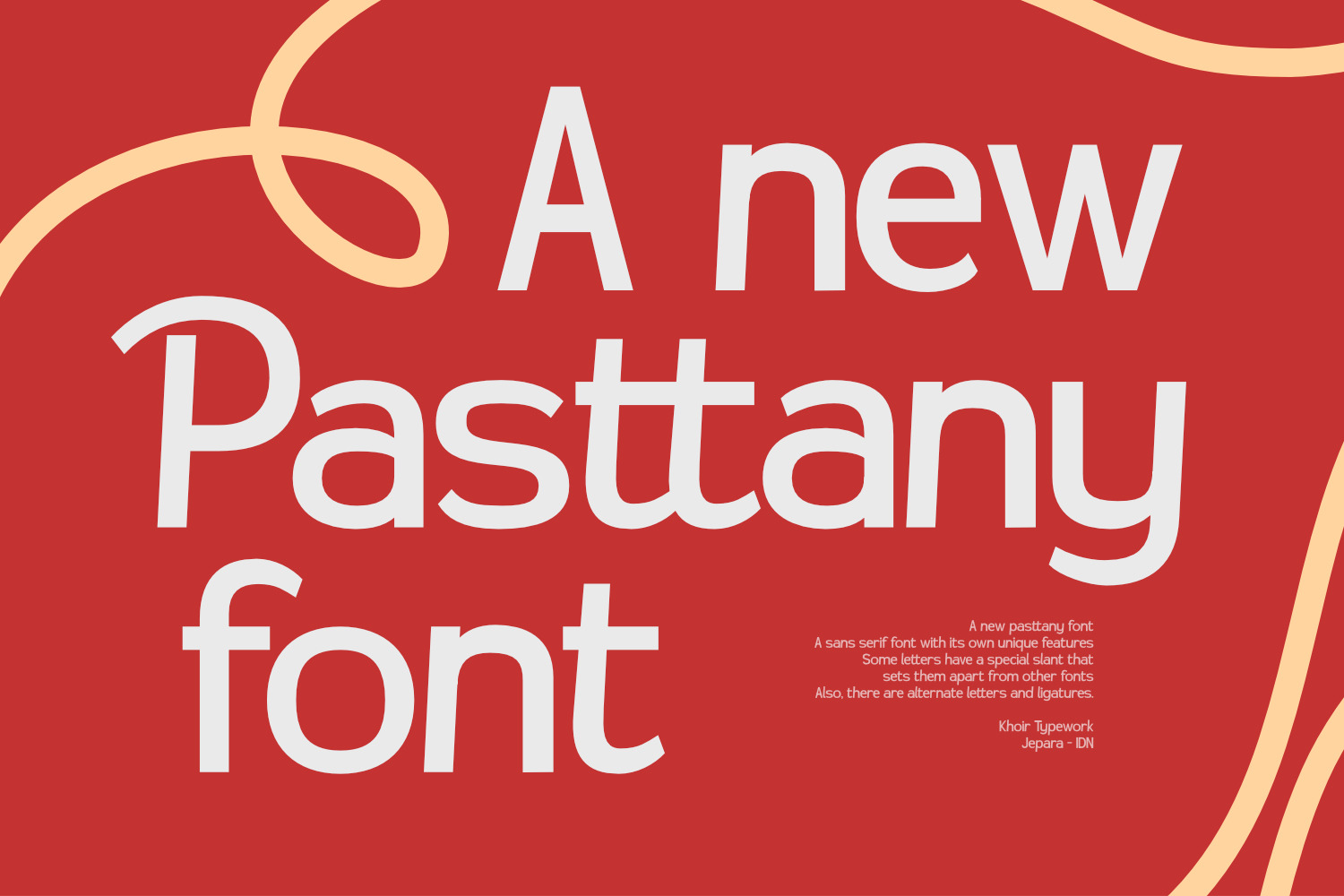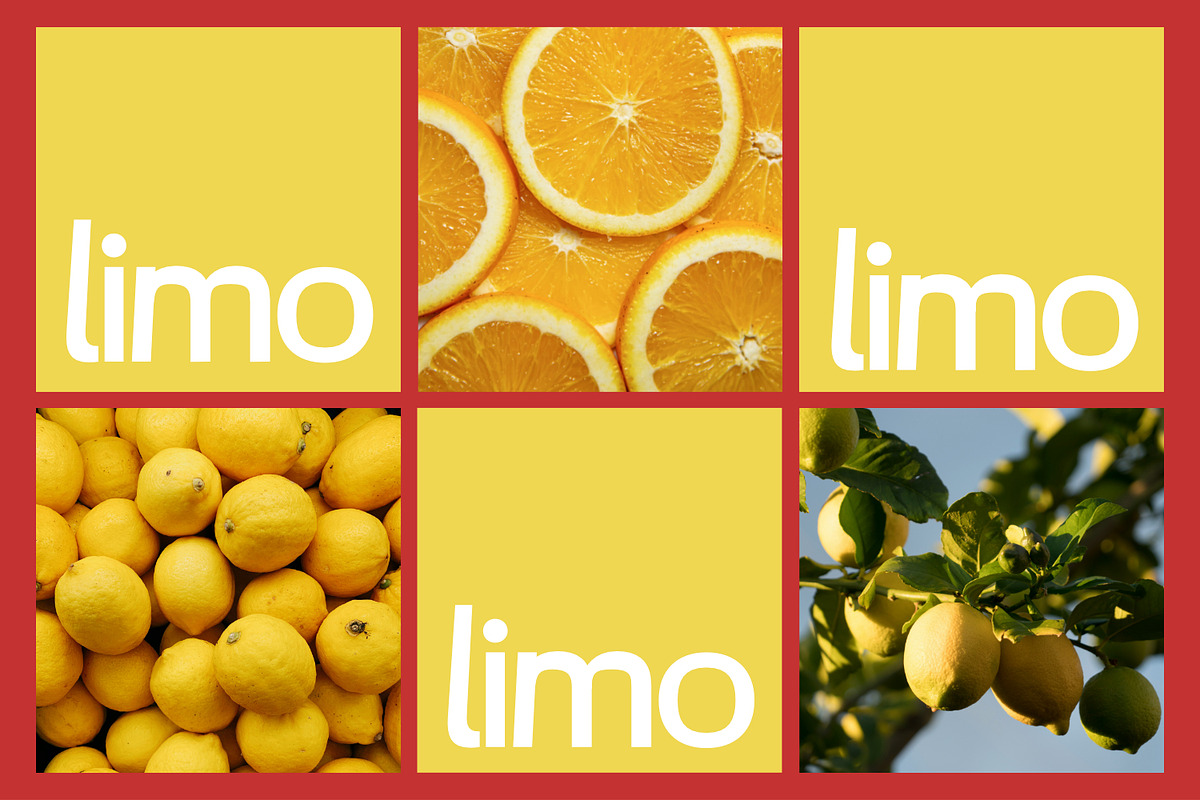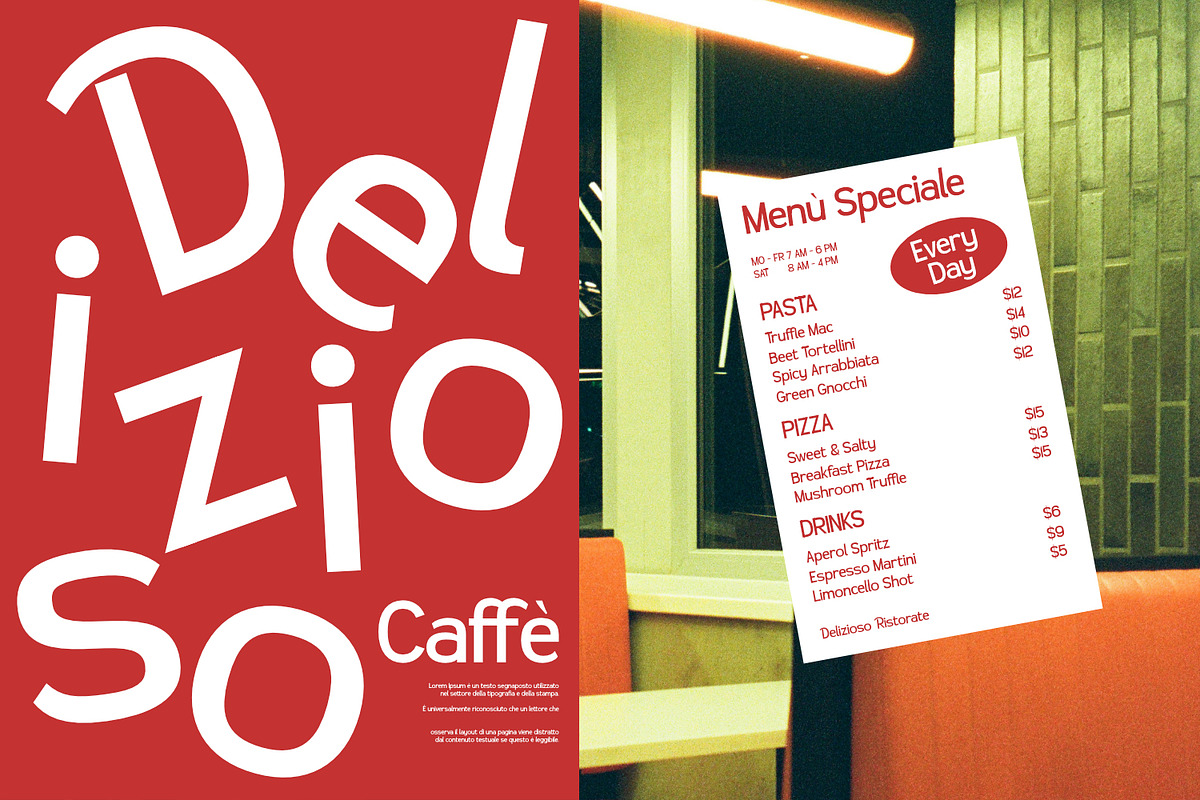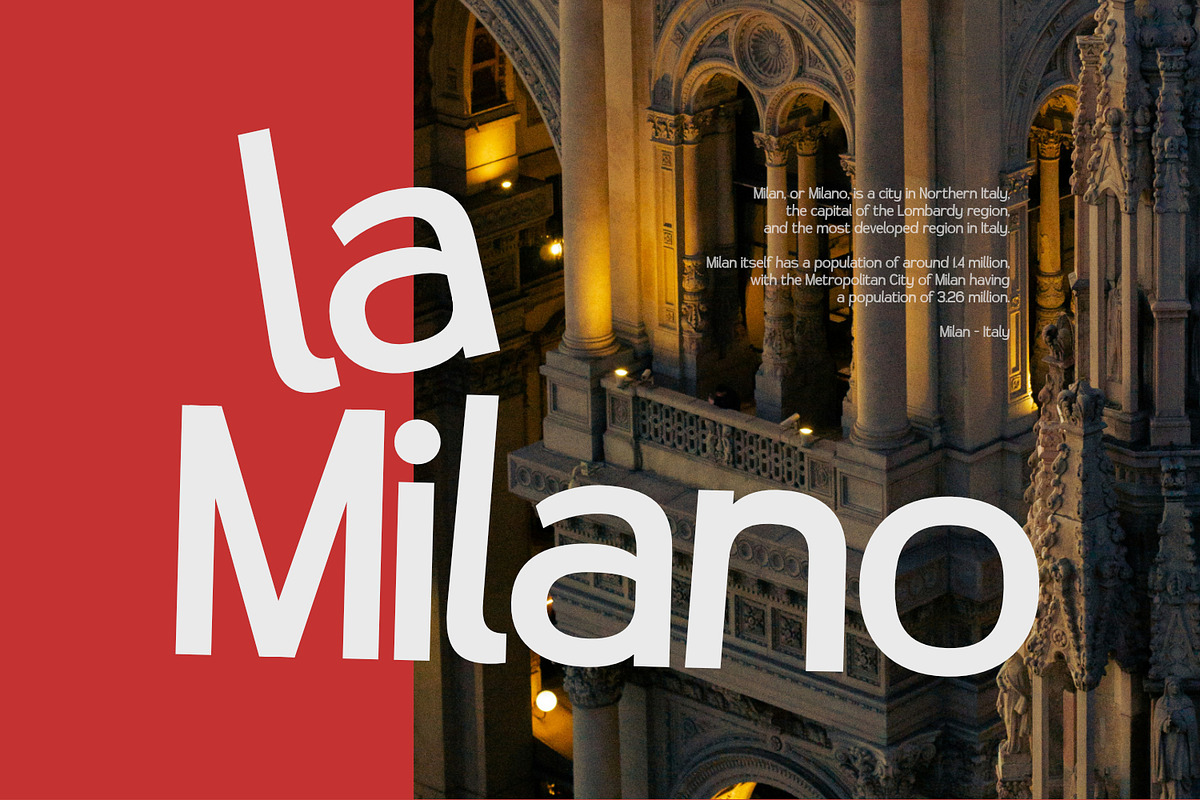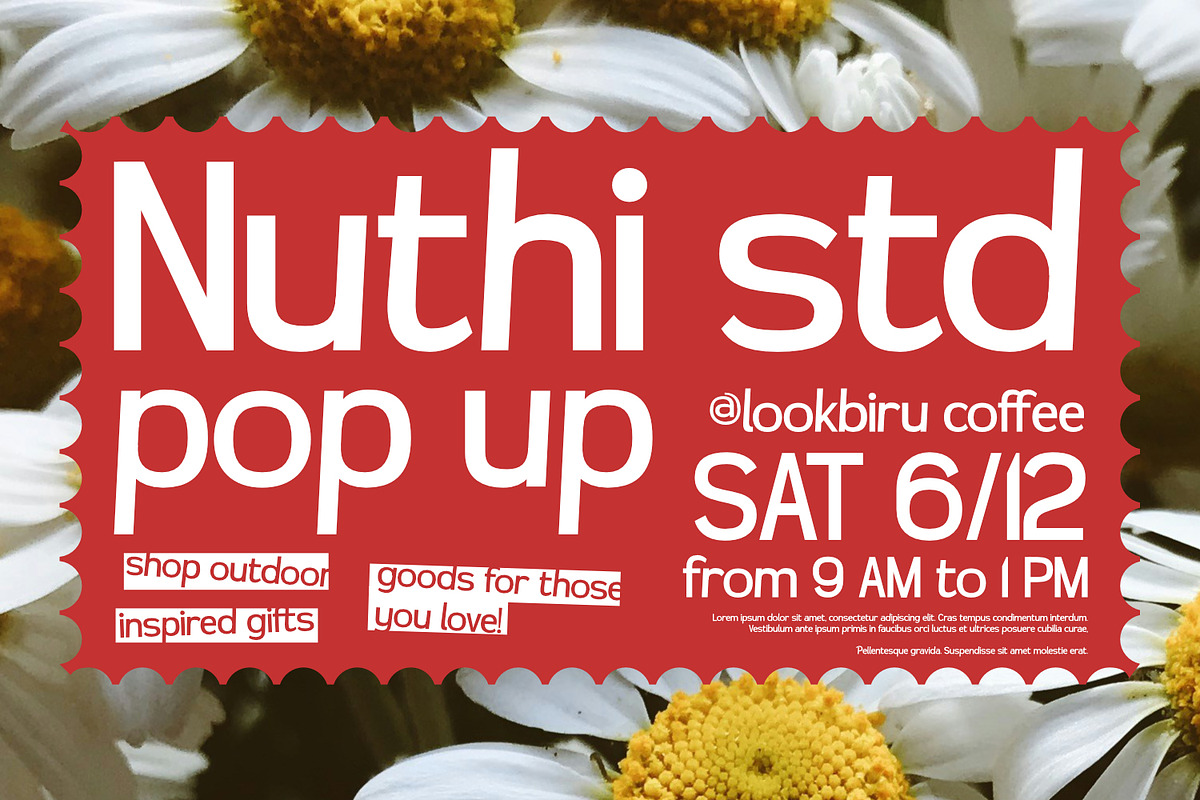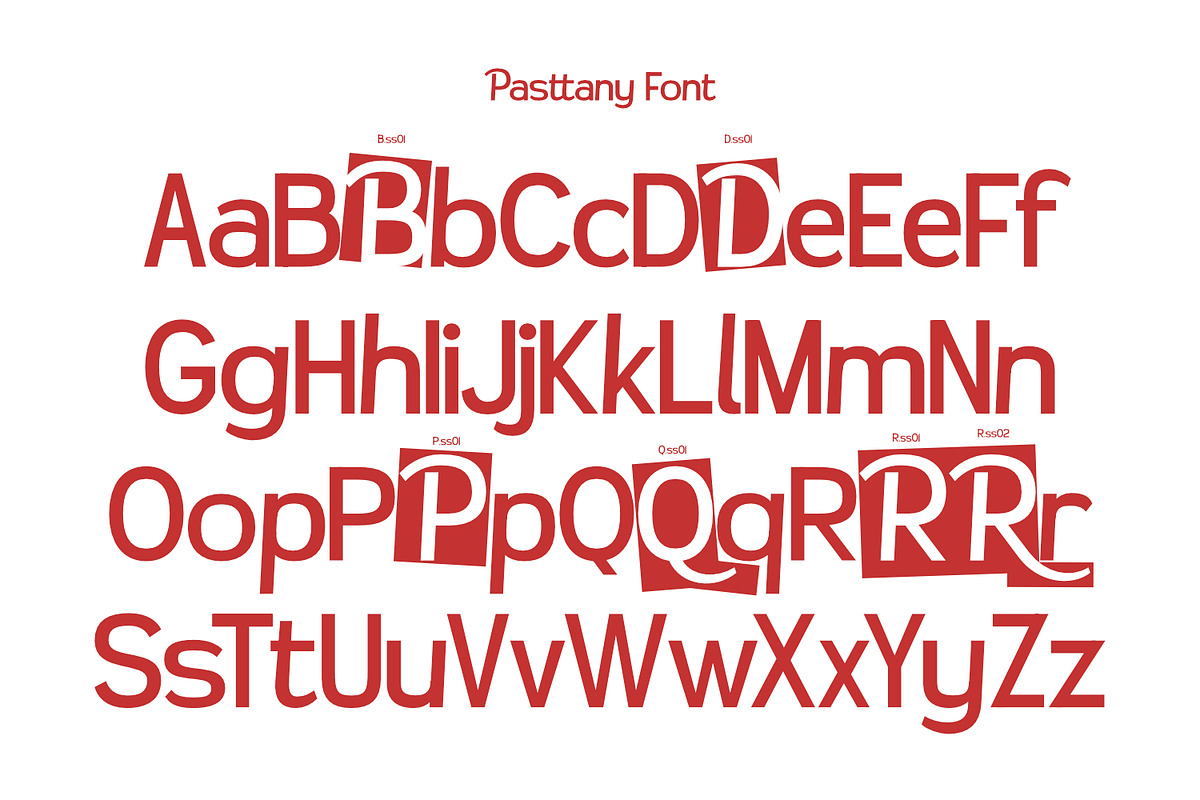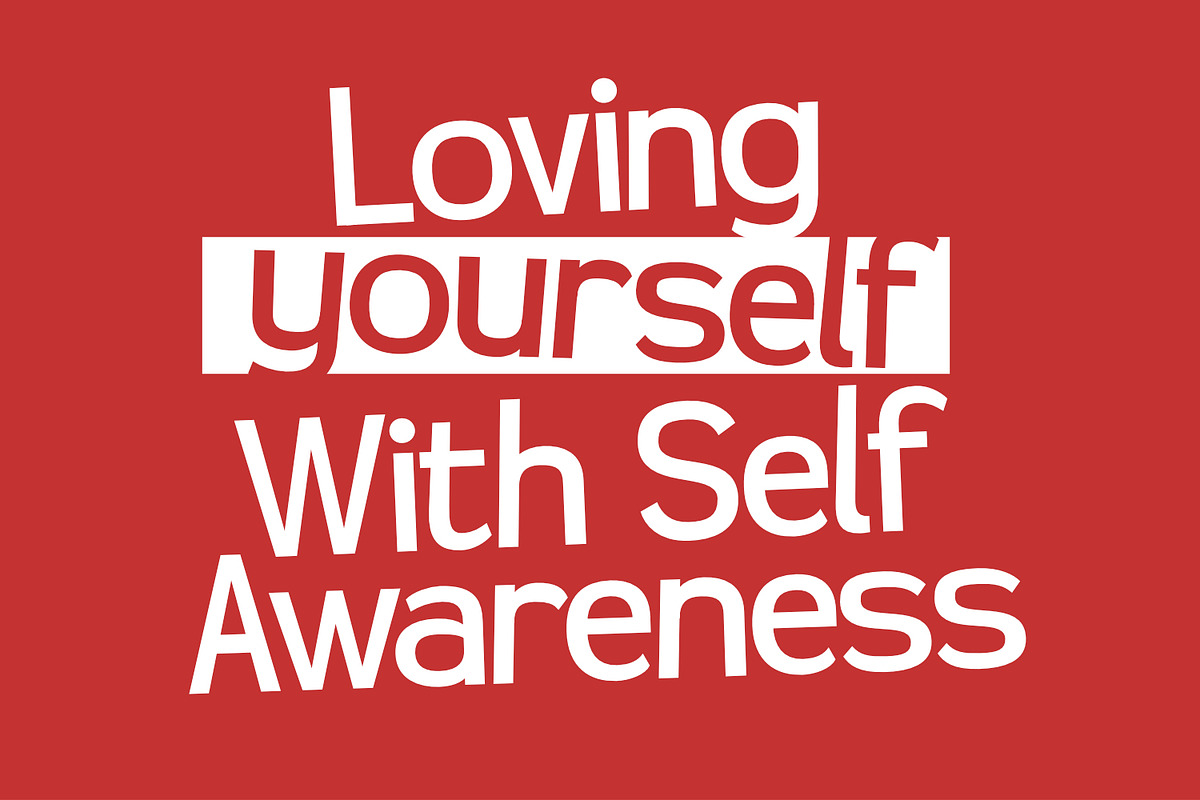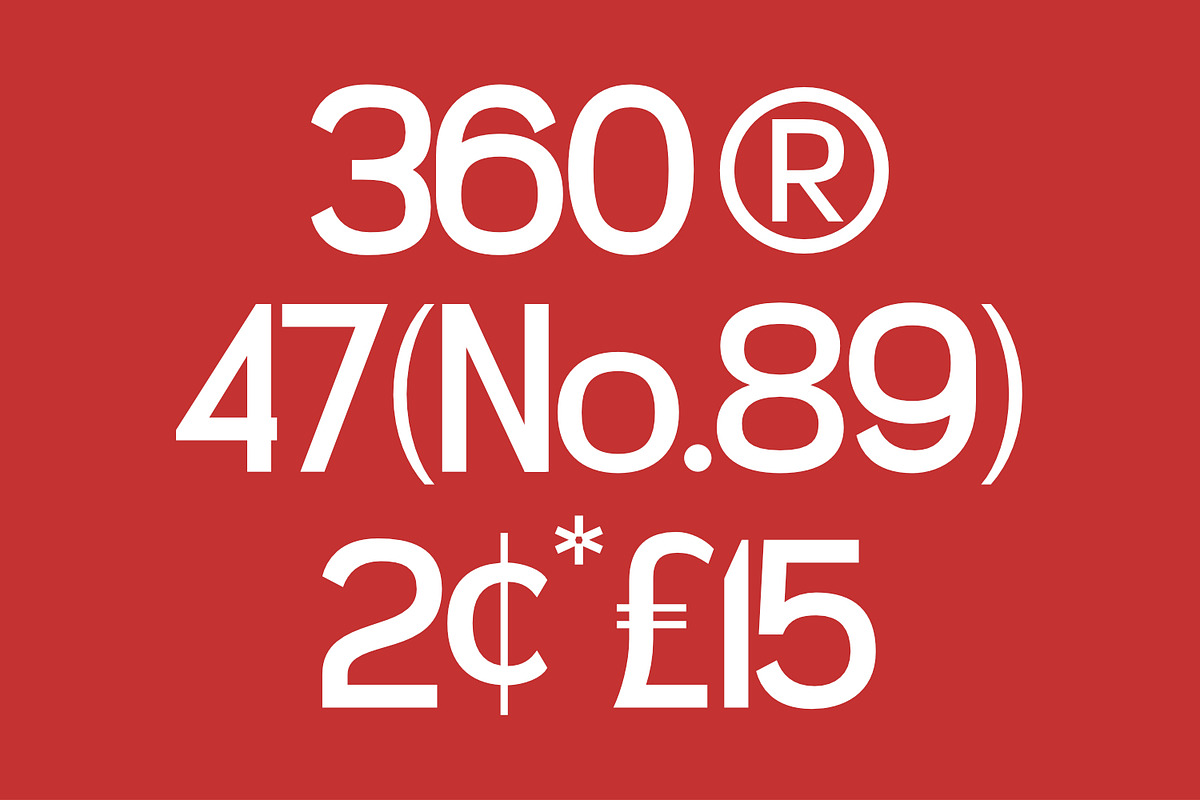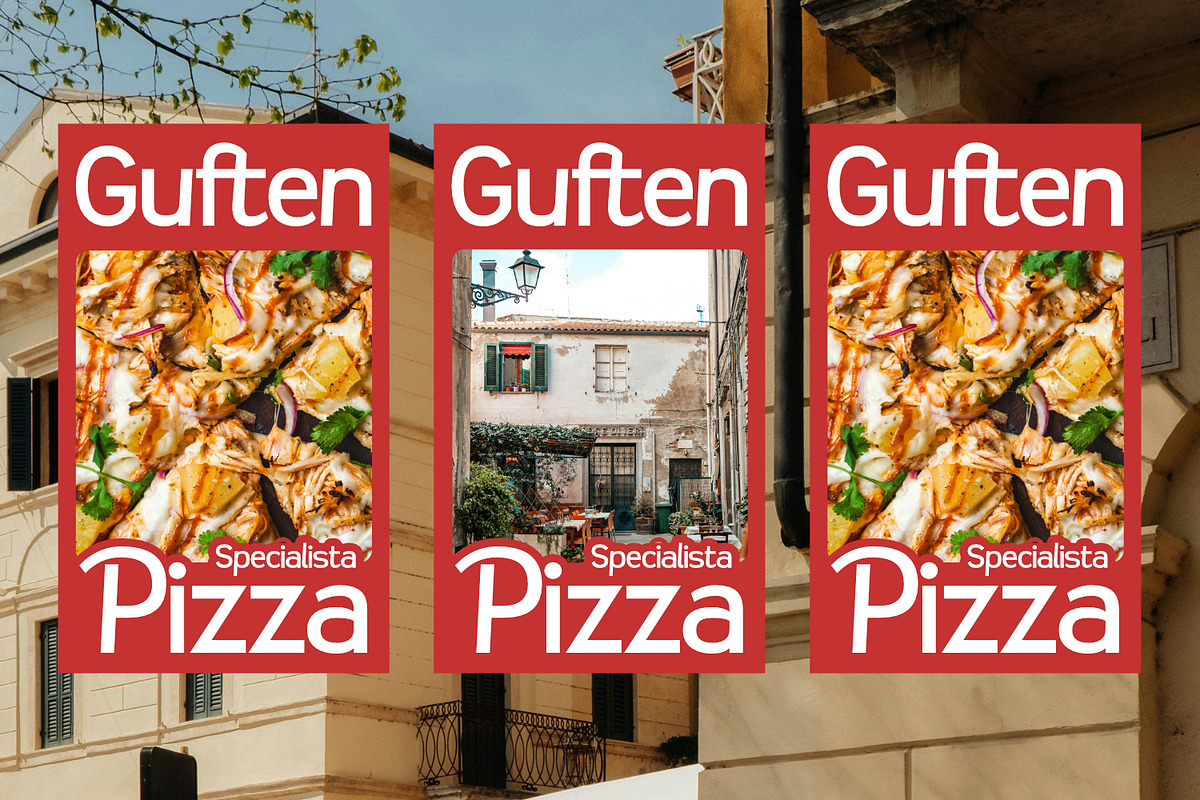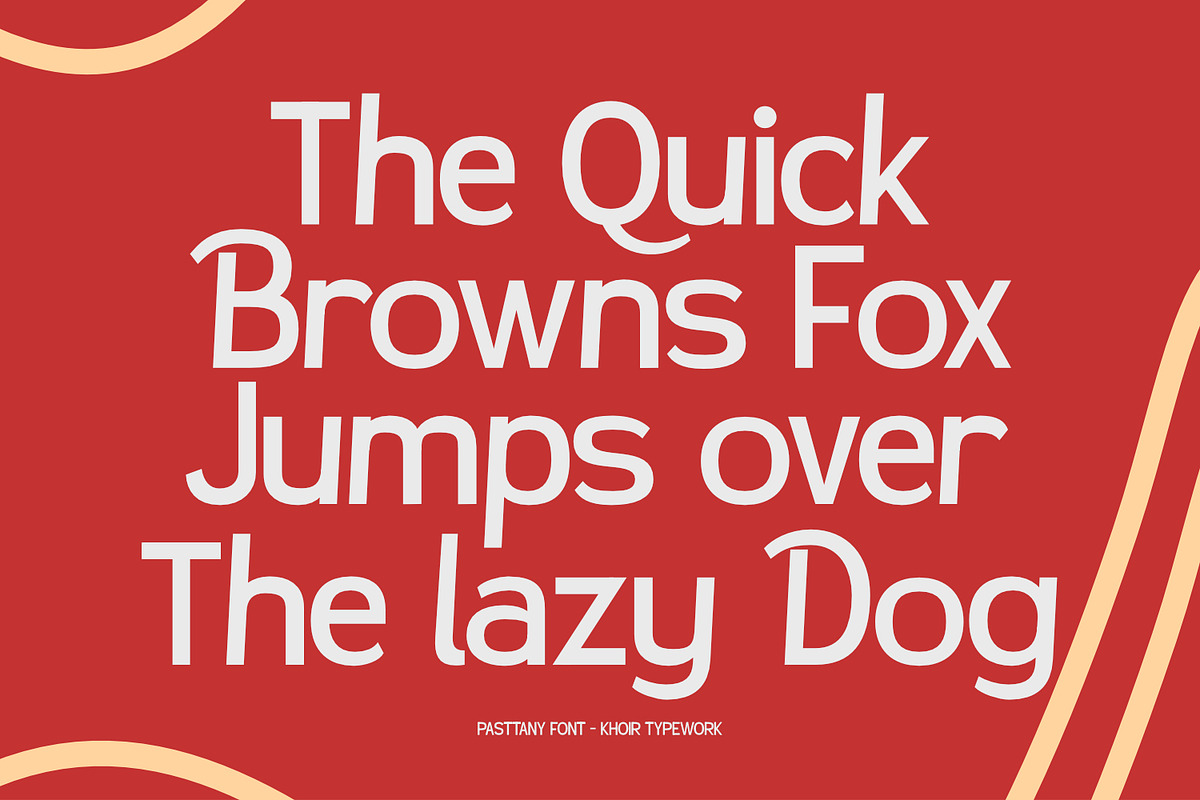
Pasttany - Sans Serif font
This sans serif font is inspired by the shape of noodles or pasta, which are bendable yet stable, conveying a sense of simplicity, durability, and continuity. Its slanted strokes give it a distinctive look and unique characteristics, making it perfect for use in food and beverage packaging, logos, covers, posters, quotes, and more.